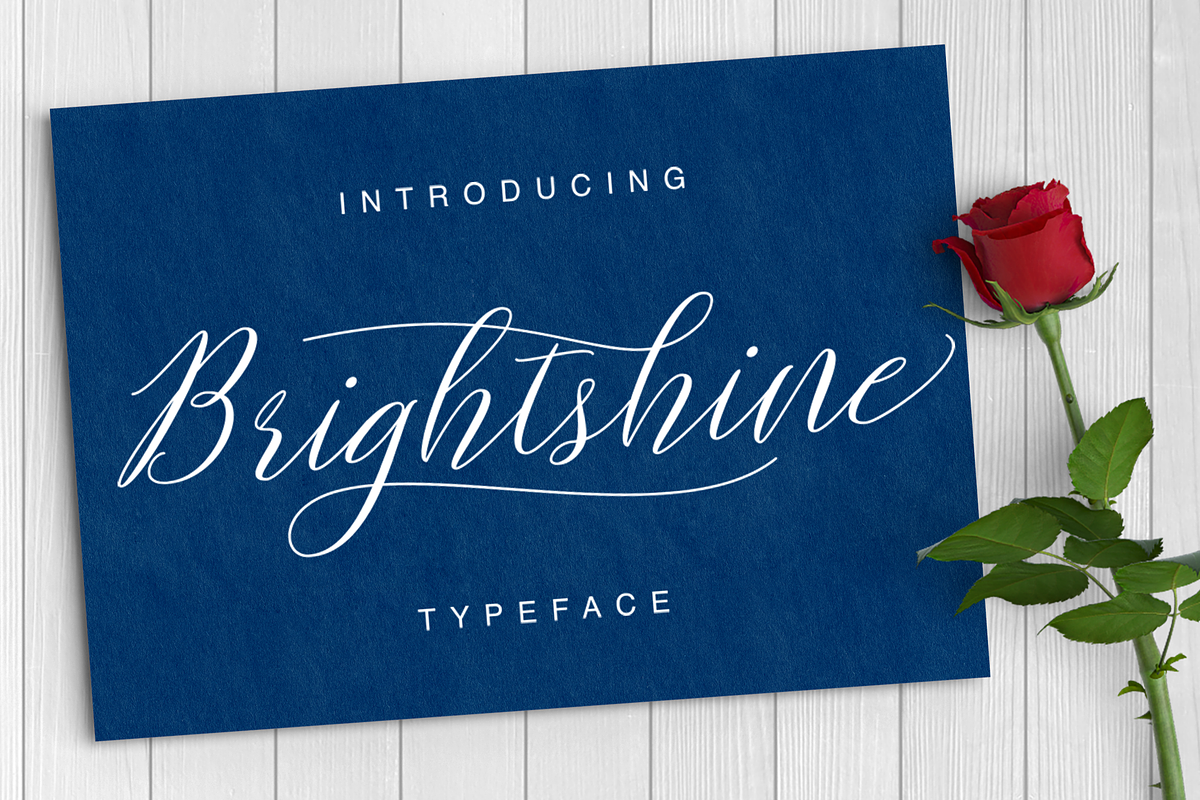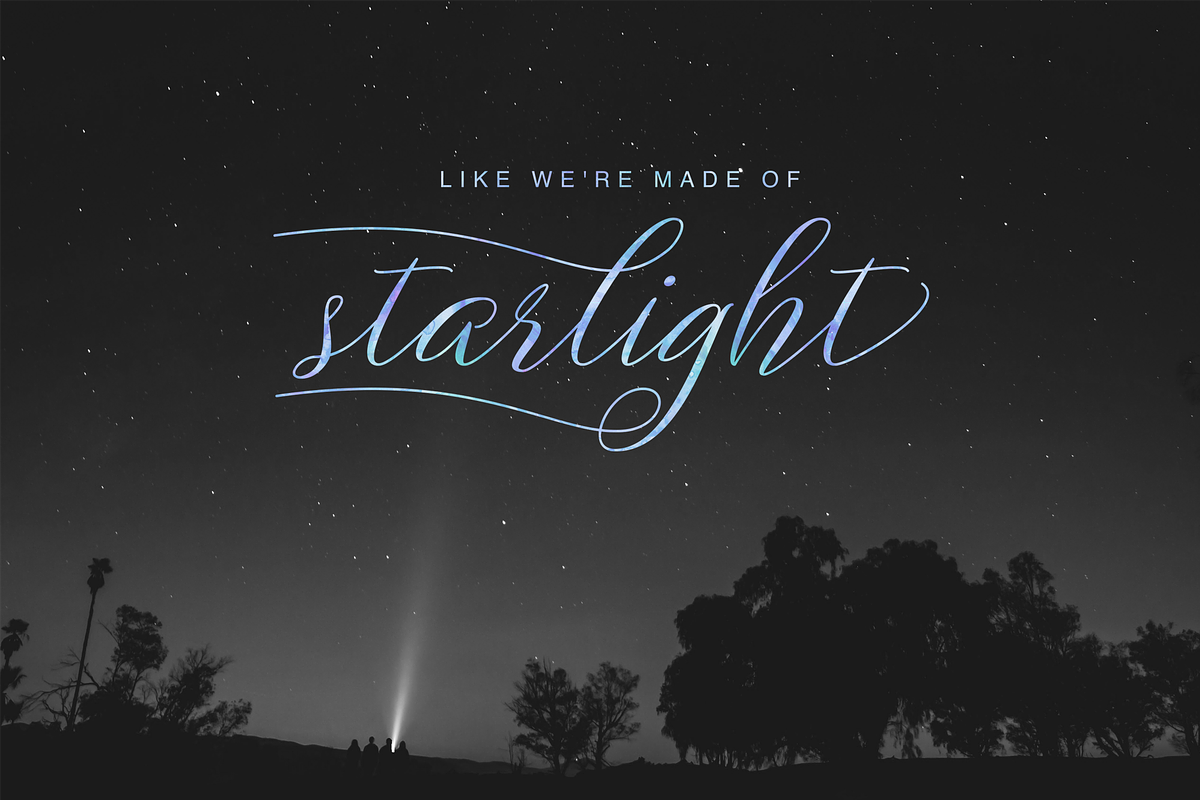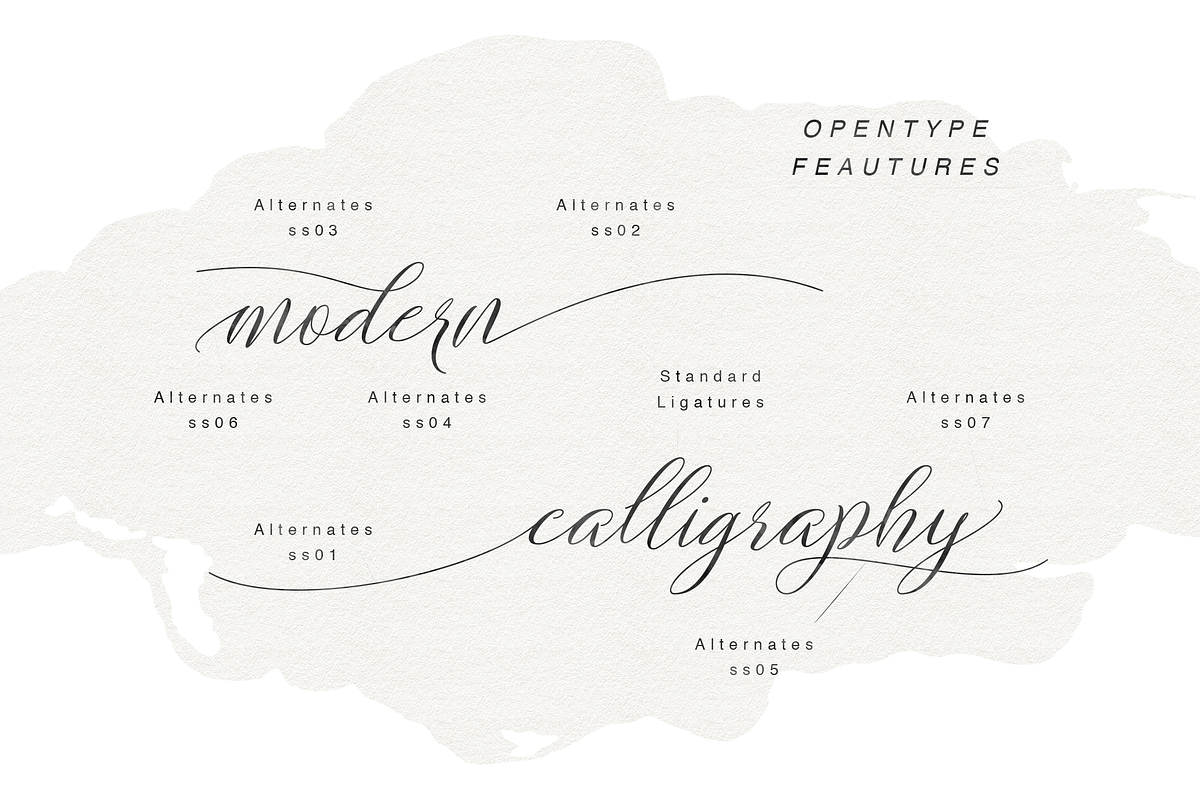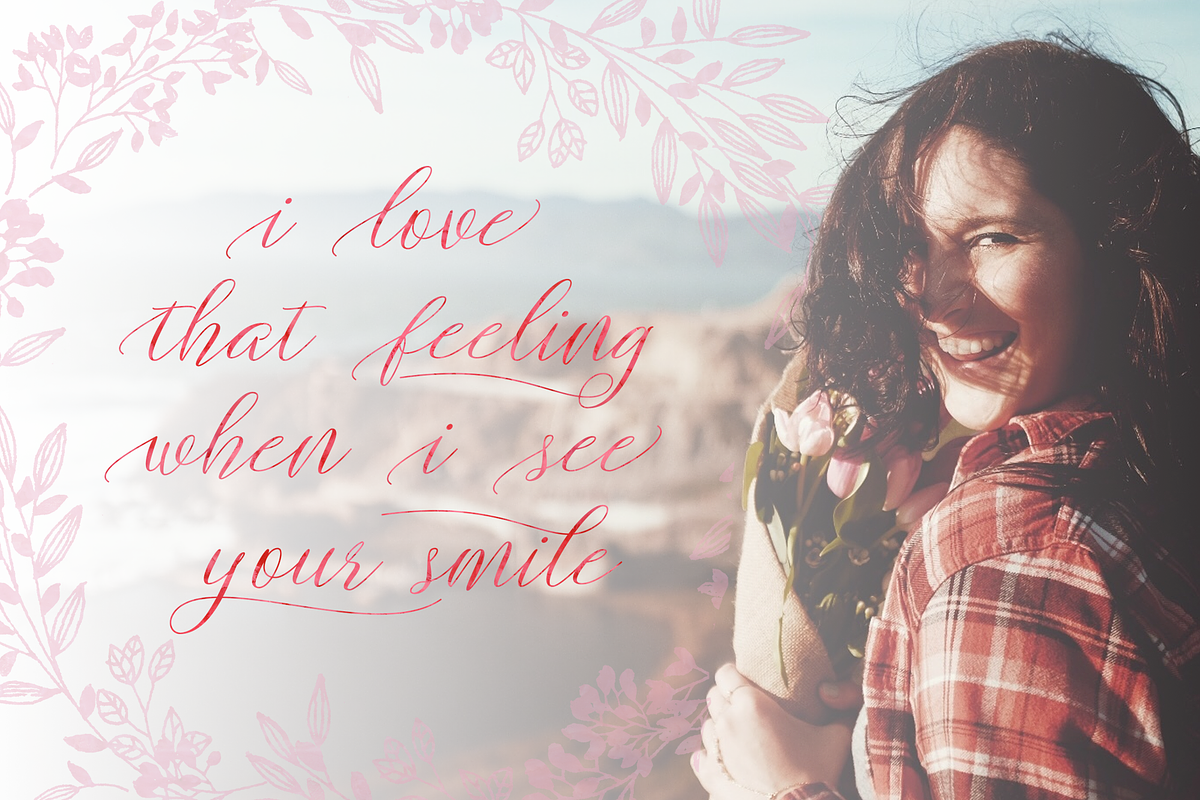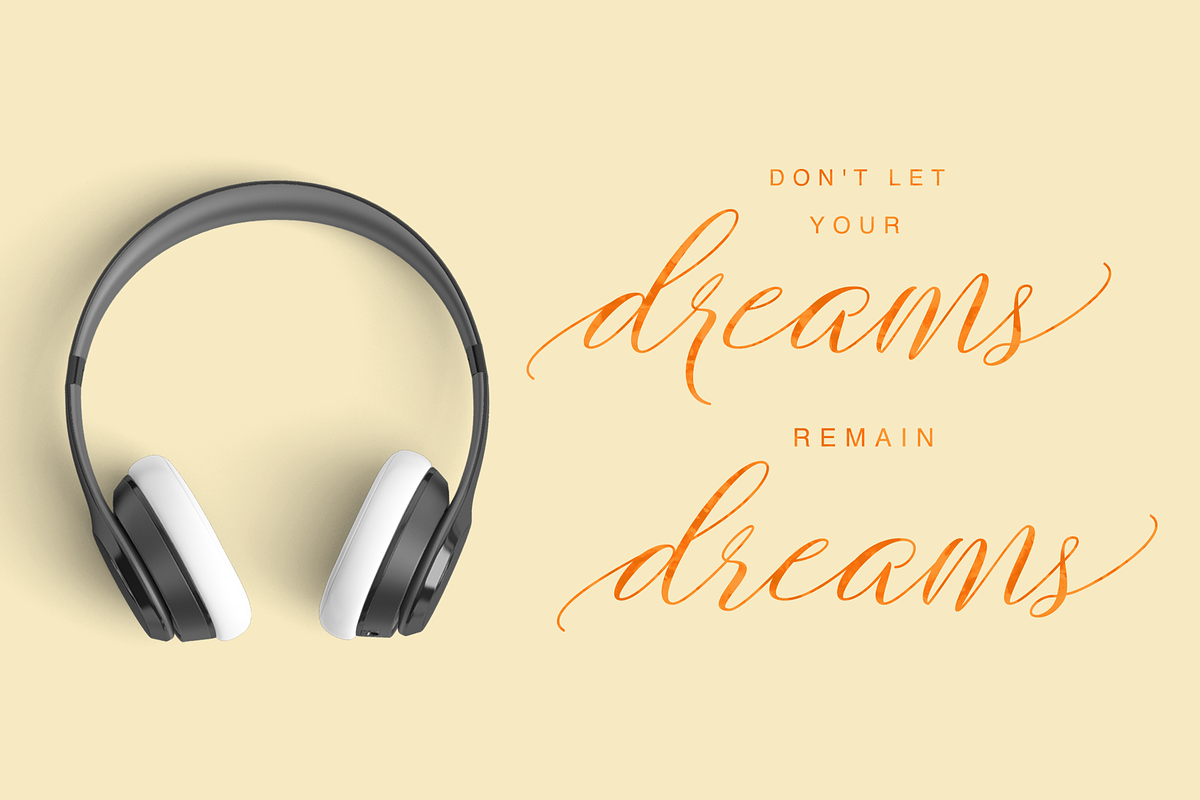
Brightshine Typeface
Brightshine Typeface by ianmikraz is a font selected for branding, posters, packaging, typography.
- Brightshine Typeface features 313 glyphs with alternate character contain with opentype features and has given PUA unicode (specially coded
- Stylistic Alternates, Standart Ligature and more.
- Mix and match the alternate characters to add an attractive message to your design.
- Features of Brightshine Typeface; Standart ligatures; Stylistic sets Alternates (7 style).
Why Brightshine Typeface is worth a look
Brightshine Typeface by ianmikraz fits naturally into Branding, posters, packaging, typography.